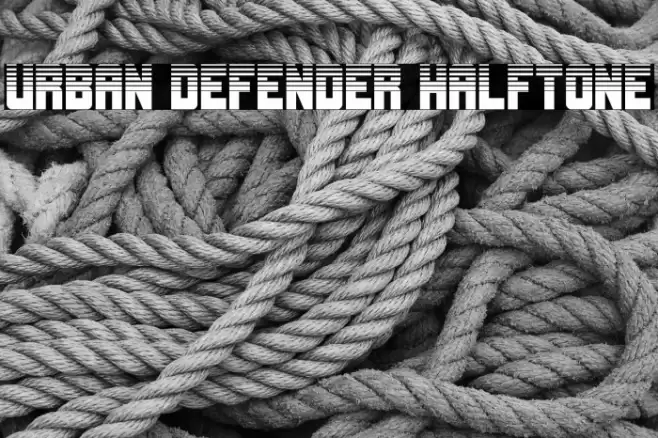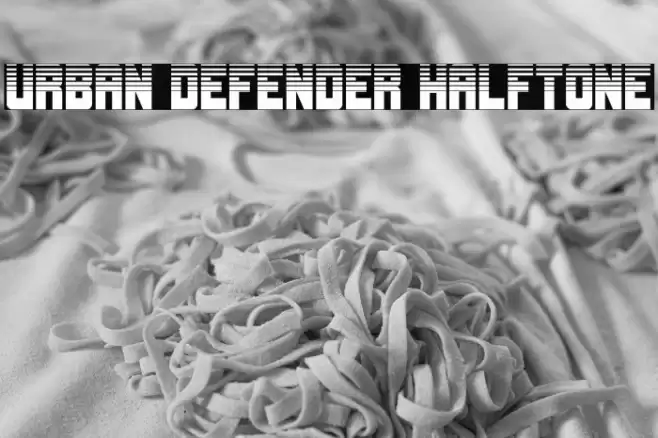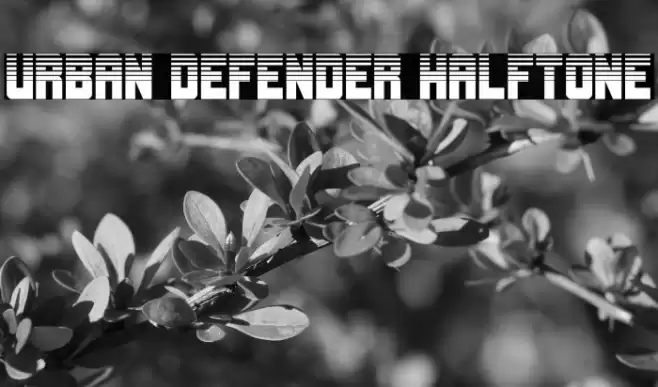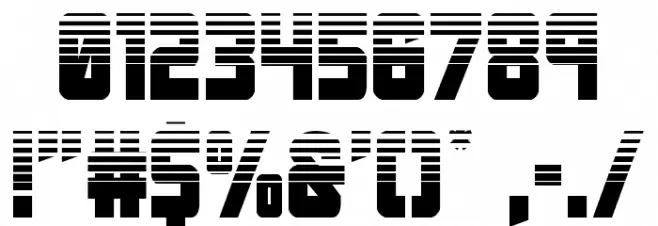
Urban Defender Halftone Font
Urban Defender Halftone Description
This font features a bold, geometric design with a distinctive halftone effect that creates a sense of depth and movement. The uppercase letters are constructed with solid, blocky shapes, while the halftone pattern adds a dynamic, urban feel. The numbers and special characters follow the same stylistic approach, ensuring consistency across all elements. The font's unique style makes it stand out, offering a modern and edgy look that is perfect for attention-grabbing designs. Its structured form and halftone detail make it suitable for projects that require a strong visual impact.
A bold, geometric font with a halftone effect for a modern, urban look from Uncategorized fonts.
- Proposed Projects: Ideal for posters, album covers, streetwear branding, and urban-themed designs.